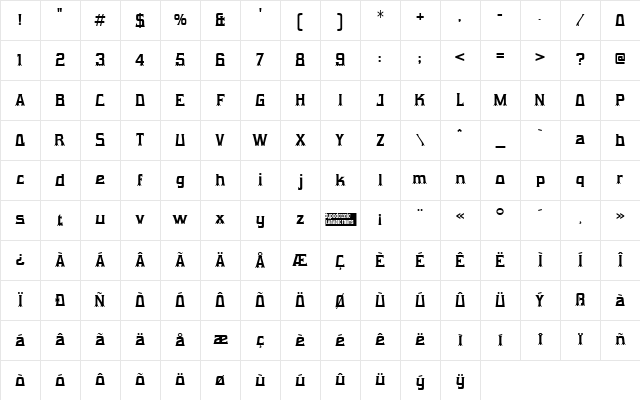
Gumtuckey Regular
Design Context for Gumtuckey
Gumtuckey is a composed and adaptable typeface that performs quietly and consistently across a wide range of design contexts.